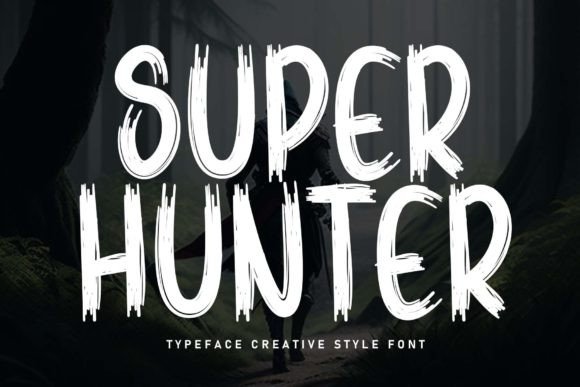
Journey into the captivating world of Super Hunter, a captivating and endearing handwritten display font that exudes charm and playfulness. This delightful creation by Strongkeng Old is a visual masterpiece, meticulously crafted to elevate your designs with a touch of whimsy and warmth.
With its enchanting curves and expressive strokes, Super Hunter effortlessly captures the essence of handwritten lettering, evoking a sense of authenticity and personal connection. Its unique style adds a touch of charm to any project, whether it's a whimsical wedding invitation, a playful greeting card, or an eye-catching social media post.
Dive into a world where imagination knows no bounds, where Super Hunter becomes your trusted companion in creating designs that speak to the heart. Infuse your projects with a touch of joy and warmth, and let the playful spirit of this font guide you towards visual excellence. Embrace the limitless possibilities and unlock the true potential of your creative vision.
- A diverse family of fonts to suit every design need
- A range of weights from light to bold for maximum versatility
- Extensive language support for global appeal
- Perfect for branding, packaging, and web design
- Complements both traditional and modern aesthetics
Elevate your designs with Super Hunter, the font that sparks imagination and ignites creativity. From elegant wedding invitations to playful social media posts, this font is your key to unlocking a world of captivating visuals.